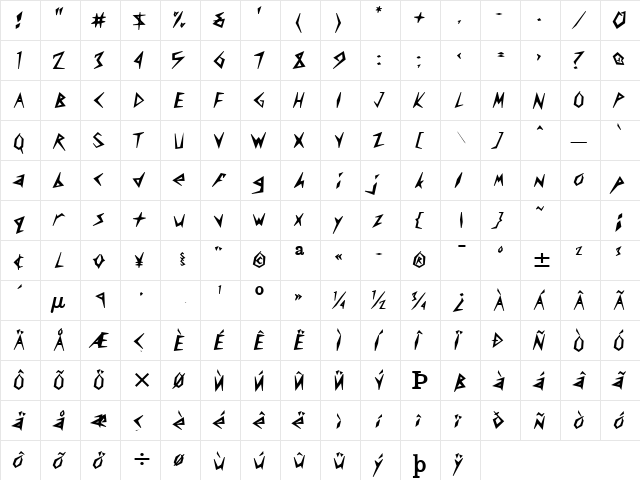
Slasher Heavy Normal
Design Context for Slasher Heavy Typeface
Slasher Heavy is a composed and adaptable typeface that performs quietly and consistently across a wide range of design contexts.
Pro Tip: Use Slasher Heavy in both headline and body roles to test its range before committing to a single application.